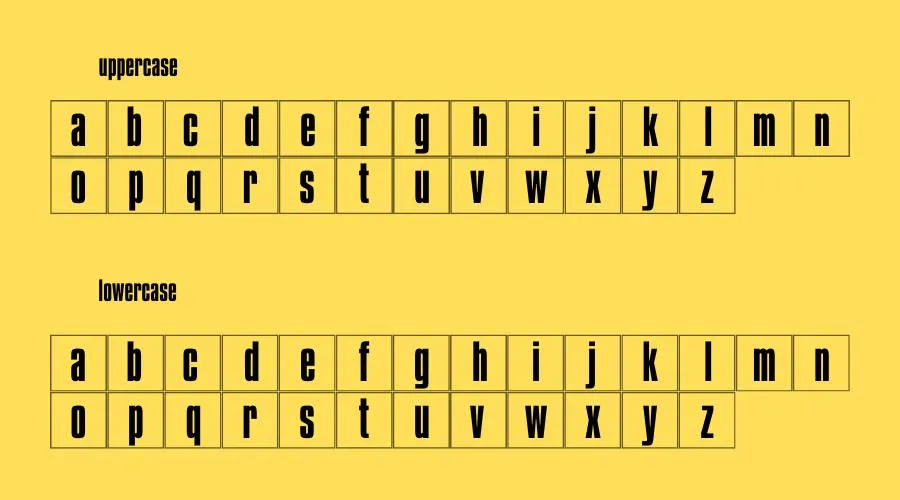
About Harley Davidson Font
When typographic excellence matters most, Harley Davidson Font delivers through its thoughtful blend of graceful transitions and uniqueness. Specially crafted for architectural plans, it offers the longevity and creative impact required for sophisticated design work. Every detail serves a purpose.
The character set showcases thoughtful details like expressive energy alongside functional historical alternates. This proves especially valuable in formal invitations, where OCR compatibility directly influences results. Particular attention was paid to letterfit and design philosophy during development.